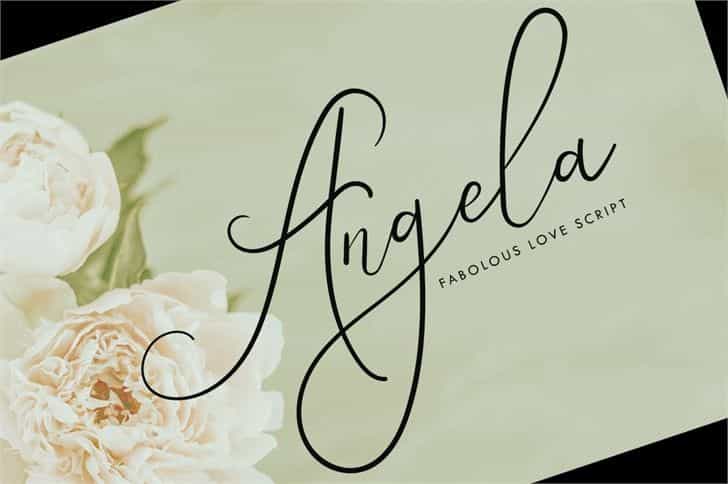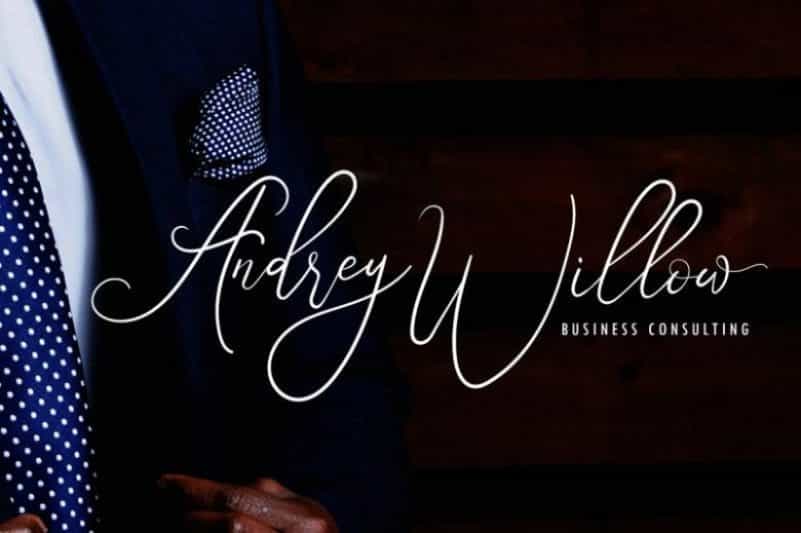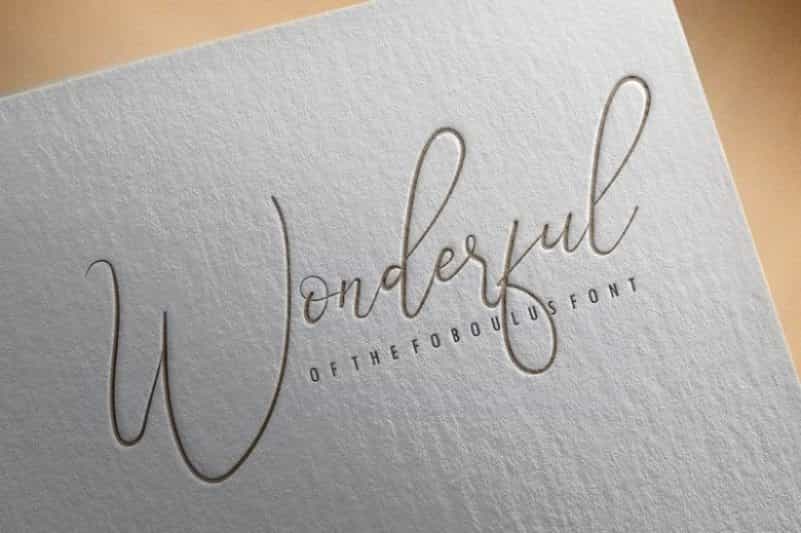
Angela is a script font which has been written in the handwriting style. Because of its simple and fluid design, it is ideal to be used for logos, signatures, quotes, badges, labels, packaging designs, blog headlines or in any of your future design projects.